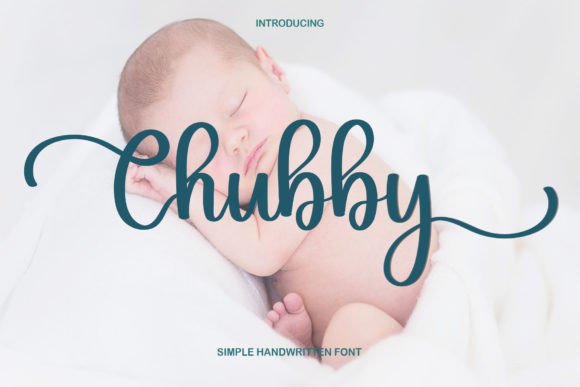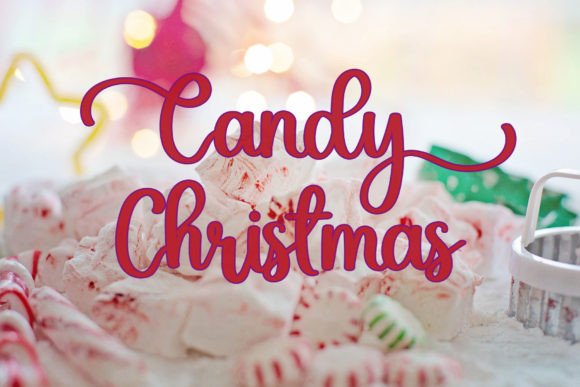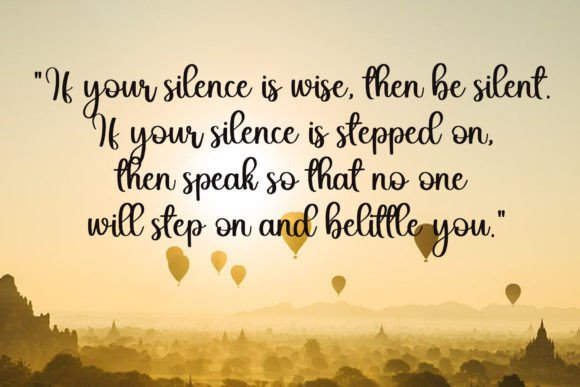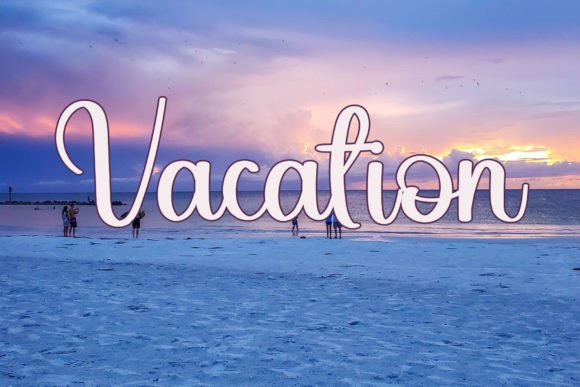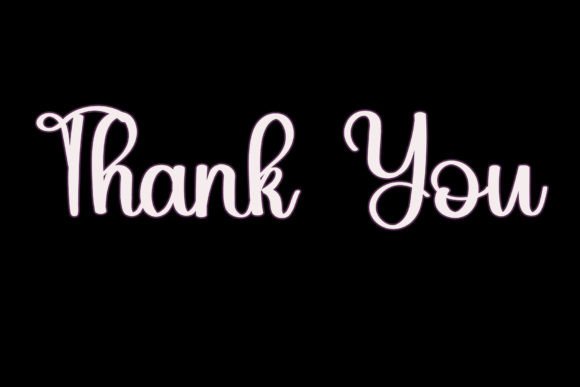
Add Elegance and Class with Chubby Font
Chubby Font is a trendy handwritten typeface that combines a contemporary vibe with timeless classic calligraphy inspiration. This elegant font is designed to add sophistication and style to your creative projects. Whether you are working on logos, branding materials, invitations, or social media content, Chubby Font brings a polished and refined look.
Moreover, its impeccable form and smooth strokes give your designs a professional and attractive finish, helping them stand out.
Versatile Uses for Chubby Font
Chubby Font is suitable for a wide variety of design projects, including:
Logos and brand identities
Wedding and event invitations
Greeting cards and thank-you notes
Product packaging and labels
Social media graphics and digital content
Posters, flyers, and promotional materials
Thanks to its trendy yet classic handwritten style, ChubbyFont adds charm and class to your work.
It also features balanced kerning and clear spacing to keep your text readable and visually appealing across different sizes and mediums.
Why Designers Choose Chubby Font
Designers and creatives appreciate ChubbyFont for its combination of trendy style and classic. It adds a personal and professional touch that elevates any project. Whether you’re a professional designer or a hobbyist, ChubbyFont helps you create beautiful.
Use ChubbyFont to bring and sophistication to your next creative idea.